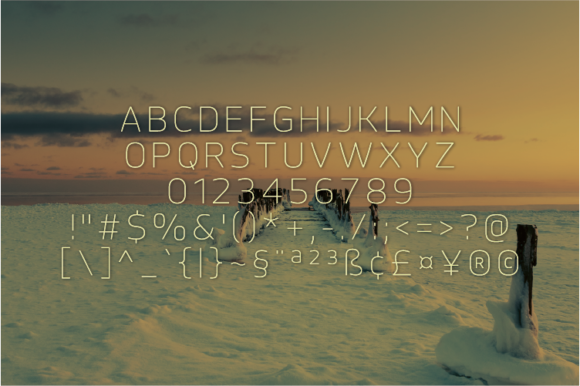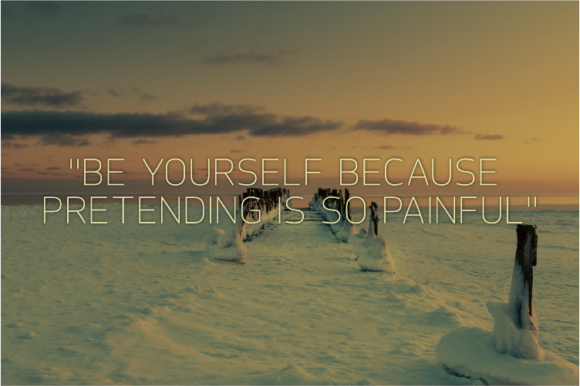
Introduction to Sandtose Font
Have you ever stared at a blank canvas, trying to bring your creative project to life, only to be held back by the perfect font? That moment of frustration is a common plight for designers everywhere. But what if I told you that there’s a solution to your font woes? Enter the Sandtose Font, a modern and clean sans serif font that’s about to become your new best friend.
With its smooth and clean lines, and just a touch of contrast, the Sandtose Font is the perfect design resource for any creative project. Whether you’re working on a logo, branding, or web heading, this versatile font is sure to impress. And the best part? It’s available for a free download, so you can get started right away.
As a designer, you know how valuable a high-quality font can be. It can make or break the look and feel of your design, and that’s why the Sandtose Font is such a valuable asset. Plus, with its transparent background, you can easily layer it over any image or design element, giving you endless possibilities for creativity.
Key Features of Sandtose Font
- High-quality, free download design resource ideal for creative projects
- Unique, modern font style with a transparent background for seamless integration
- Designed at a high resolution of 300 DPI for crisp, clear typography
- Includes a comprehensive character set, including uppercase and lowercase letters, numbers, and punctuation
- Perfect for use in various creative projects, from branding and advertising to digital art and design
Honest Review: Sandtose Font
I recently stumbled upon the Sandtose Font while searching for a unique design resource for my creative project. I was excited to dive in and see if it lived up to my expectations.
- ✨ The font’s clean and modern aesthetic makes it perfect for a variety of design applications.
- ✨ The transparent background allows for seamless integration with other design elements.
- ⚠️ The font may not be suitable for projects that require a lot of bold or heavy typography.
- ⚠️ Some users may find the font’s thin lines to be difficult to read at smaller sizes.
Overall, I’m impressed with the Sandtose Font. It’s a great addition to any designer’s toolkit, and its free download makes it an attractive option for creative projects. While it may have some limitations, I believe it’s a high-quality font that can add a unique touch to any design.
How to Use Sandtose Font
Using Sandtose Font in Creative Projects
You can use the Sandtose Font in a variety of creative projects, including graphic designs, logos, and typography-based art. The font’s high quality and transparent background make it an ideal choice for designers looking for a versatile and stylish font.
Tips for Getting the Most Out of Sandtose Font
To get the most out of the Sandtose Font, experiment with different font sizes, styles, and combinations. Use the font’s transparent background to create unique and eye-catching designs. Also, pair the font with other high-quality fonts to create a harmonious and visually appealing design.
The Sandtose Font is ideal for a variety of use cases, including:
- Logo designs
- Typography-based art
- Graphic designs